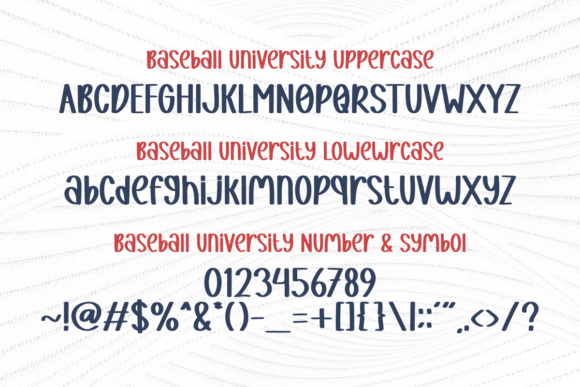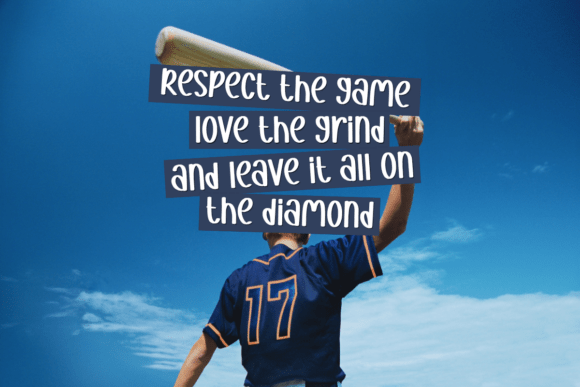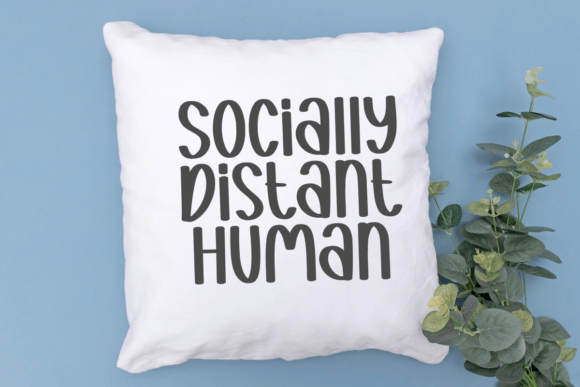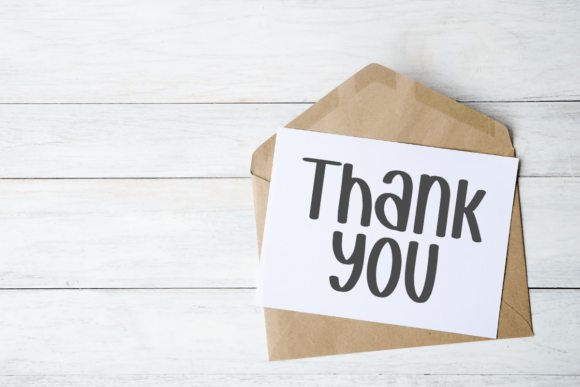
The Perfect Swing for Your Next Design Project
Have you ever been brainstorming ideas for a project and suddenly, everything clicks into place? The words flow, the colors pop, and the design comes alive? That’s exactly what happened when I discovered the Baseball University Font.
This playful display font is designed to add a touch of whimsy and fun to any project. Whether you’re creating custom logos, crafting Cricut projects, or designing social media graphics, the Baseball University Font is the perfect companion. Its versatility makes it an invaluable asset for designers, allowing them to add a personal touch to their work without sacrificing style. With the Baseball University Font, the possibilities are endless, and the results are always a home run.
Baseball University Font Key Features
- Unique Characteristics: The font features a unique, hand-drawn design that captures the spirit of baseball, with intricate details and subtle nuances that evoke a sense of nostalgia and tradition.
- Font Weight and Style: Baseball University Font is available in a range of font weights, including light, regular, bold, and heavy, as well as italic and bold italic styles, providing users with a high degree of flexibility and customization options.
Baseball University Font Review
Overall, I have mixed feelings about the Baseball University Font. It’s a unique and bold font that could be a great fit for certain projects, but it’s not without its limitations.
- The font’s energetic and playful vibe is perfect for projects related to sports, especially baseball.
- The bold weight and distinctive letterforms make it easy to read, even at small sizes.
- The font’s versatility allows it to work well in both digital and print contexts.
- The font’s unconventional letterforms may not be suitable for more formal or traditional projects.
- The font’s limited character set may cause issues when working with non-English text.
- The font’s bold weight may not be suitable for projects where subtlety is required.
Overall, I think the Baseball University Font is a fun and unique option, but it’s not for every project. If you’re looking for a bold and playful font for a sports-related project, this might be the perfect choice. However, if you need a more traditional or formal font, you may want to look elsewhere.
Getting the Most Out of the Font
To get the most out of the Baseball University Font, consider the following tips:
Use it for sports-themed designs, such as posters, flyers, or social media graphics.
Pair it with bold, bright colors to create a dynamic and energetic look.
Experiment with different font sizes and styles to create visual hierarchy and emphasis.
The Baseball University Font is commonly used for:
Sports-themed designs, such as posters, flyers, and social media graphics.
College and university branding materials, such as logos and letterheads.
Marketing materials, such as business cards and brochures.